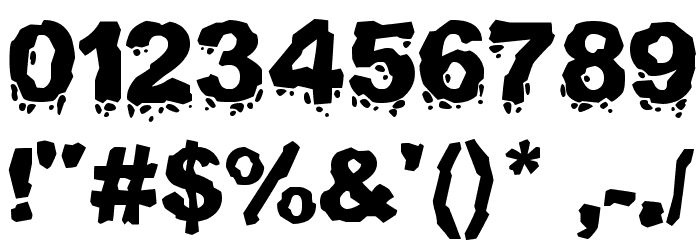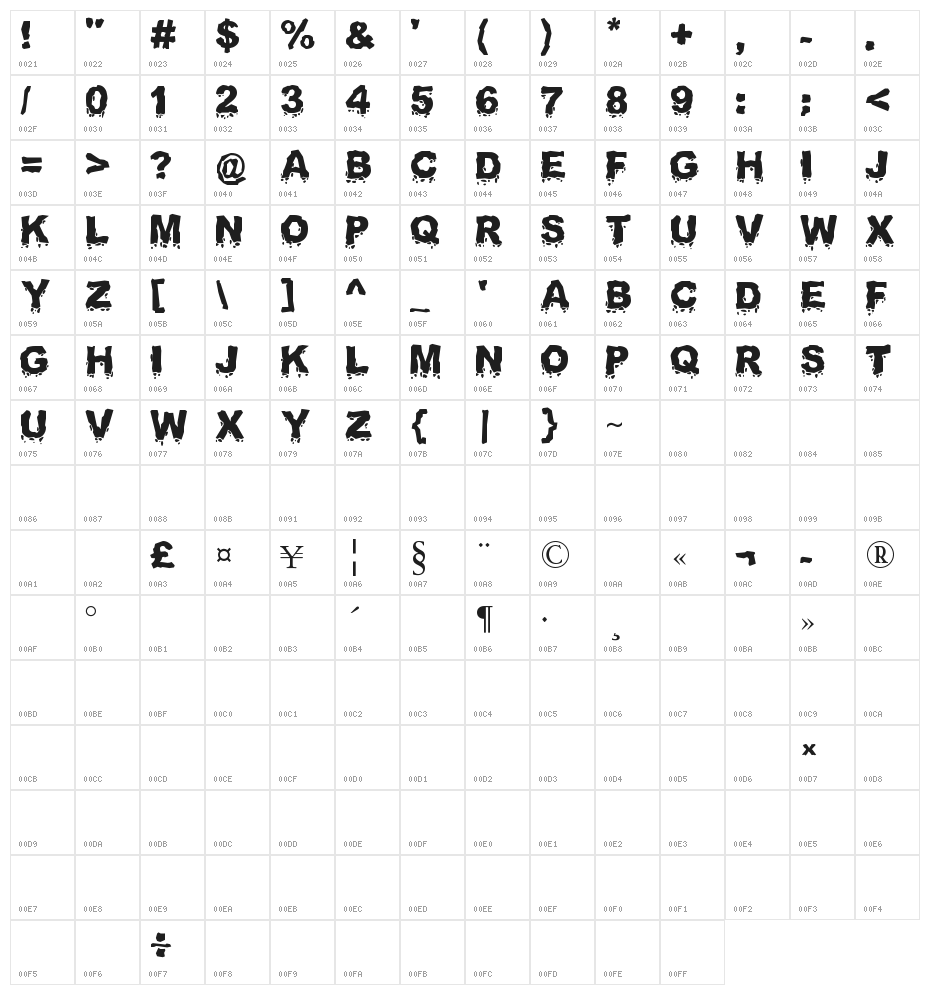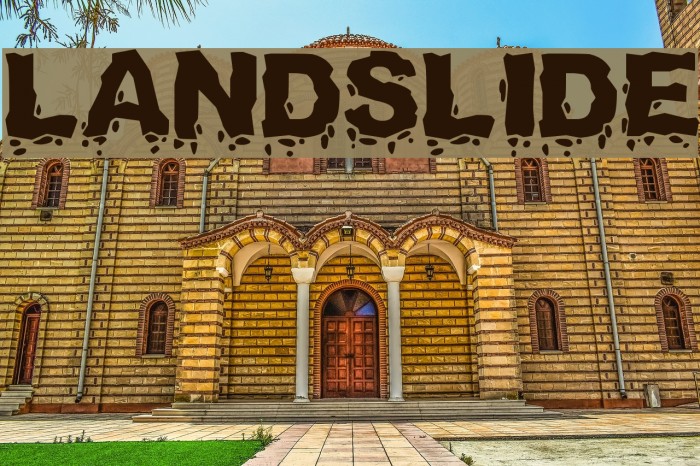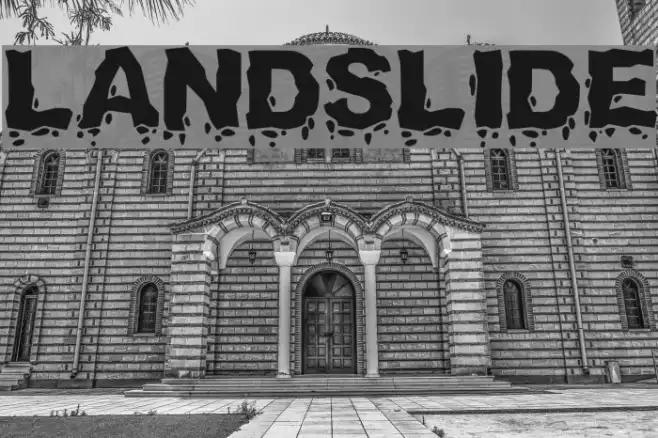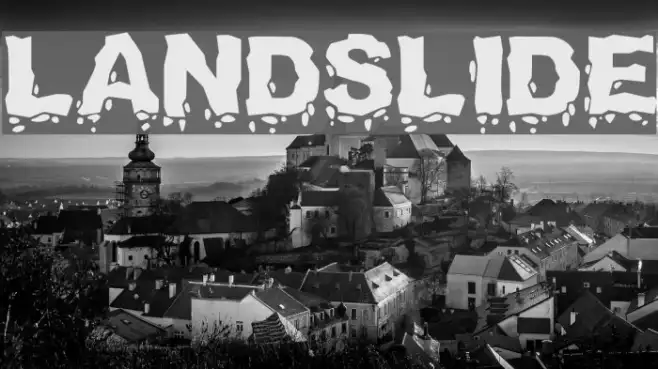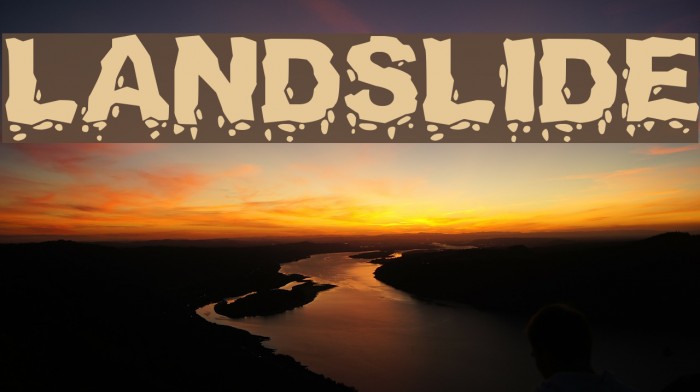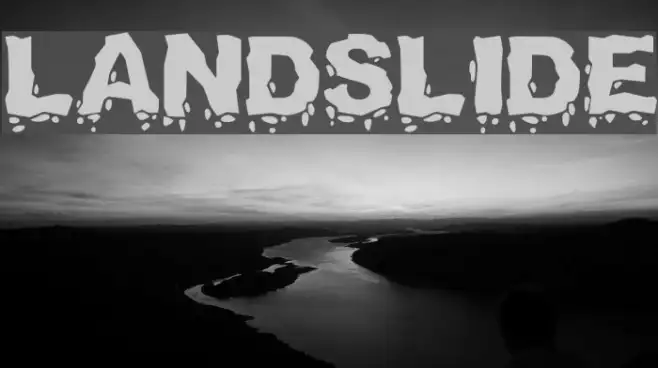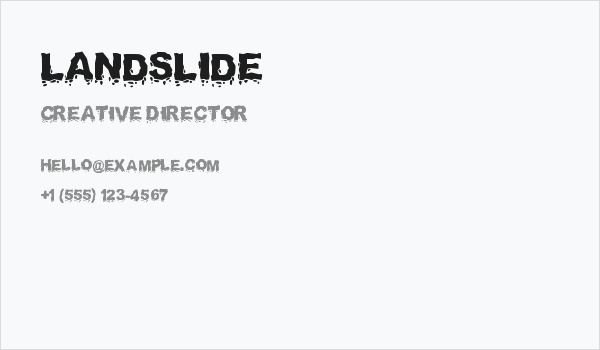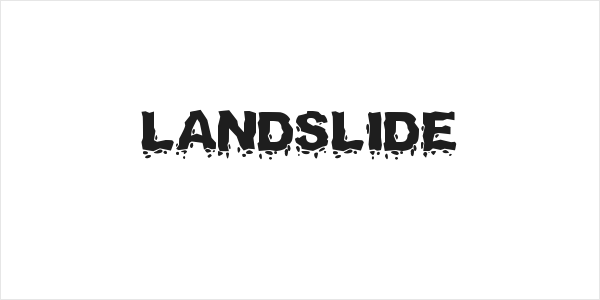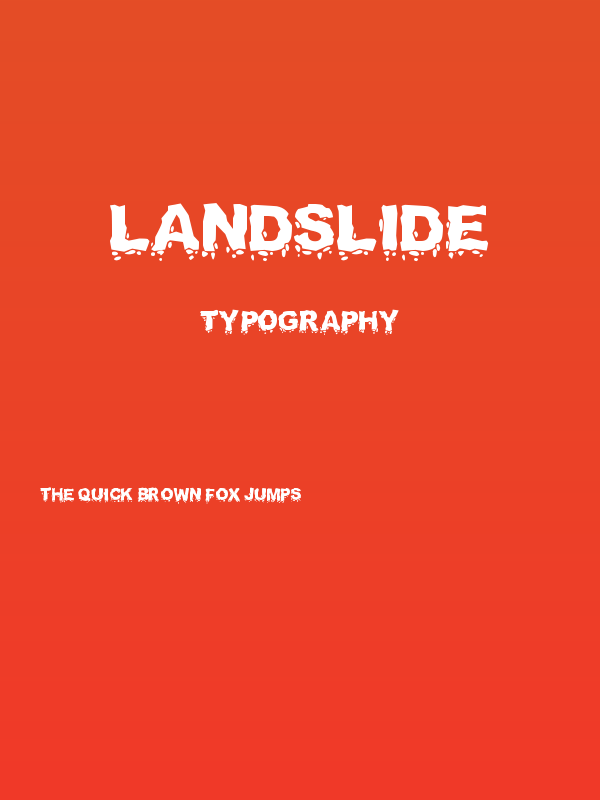
Landslide Font
Landslide Description
This font features a bold and rugged design with a distressed, eroded appearance. The characters are heavily stylized, with irregular edges and a textured look that suggests wear and tear. The uppercase and lowercase letters maintain a consistent style, with a bold presence that makes them stand out. Numbers and special characters are equally bold and maintain the distressed aesthetic, making them suitable for impactful designs. The font's unique style is reminiscent of natural elements, evoking a sense of rawness and strength.
| Proposed Projects | Ideal for projects requiring a strong, impactful look, such as posters, album covers, or branding for outdoor or adventure-themed products. |